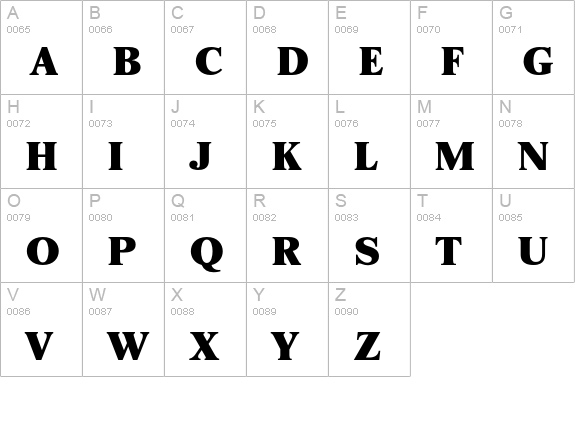
PT NewtonX Cyrillic Font Details
The PT NewtonX Cyrillic font is a sleek and modern typeface designed to bring a touch of elegance to your projects. With its clean lines and sophisticated style, this font is perfect for adding a touch of sophistication to any design. The Cyrillic characters in this font are beautifully crafted, making it ideal for projects that require a touch of international flair. Best of all, the PT NewtonX Cyrillic font is available for free download at FontsMarket.com. Whether you're working on a professional project or just looking to add a unique touch to your personal designs, this font is a versatile and stylish option that won't cost you a thing. Download it today and add a touch of elegance to your next project.